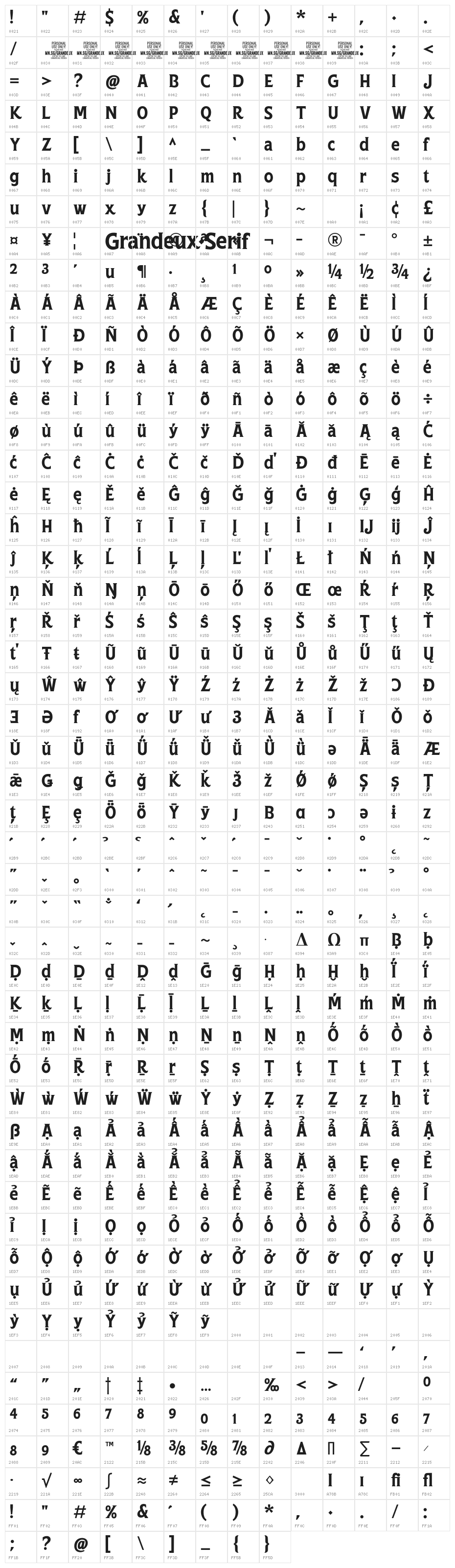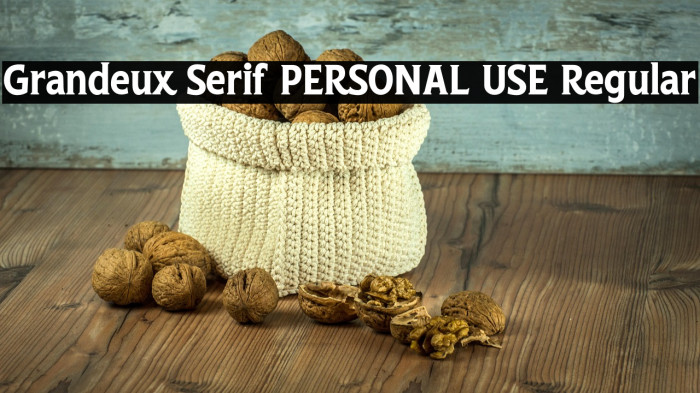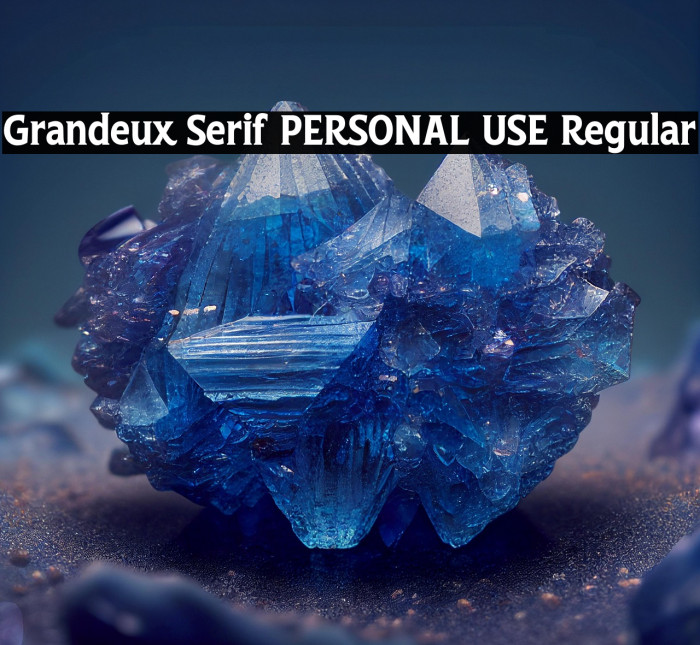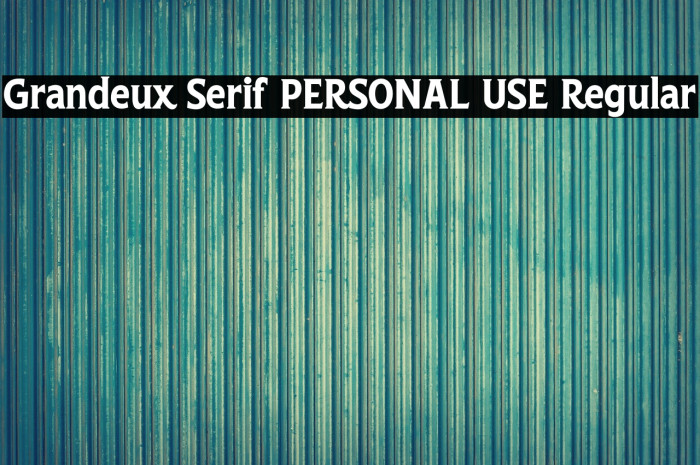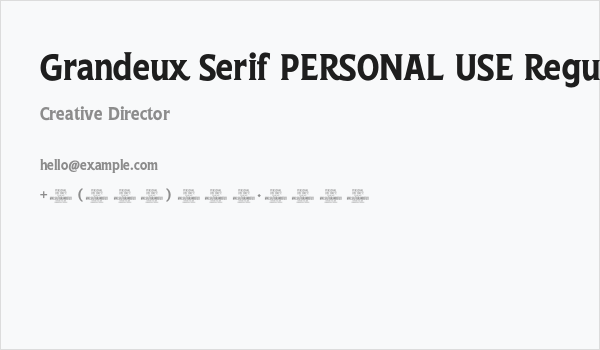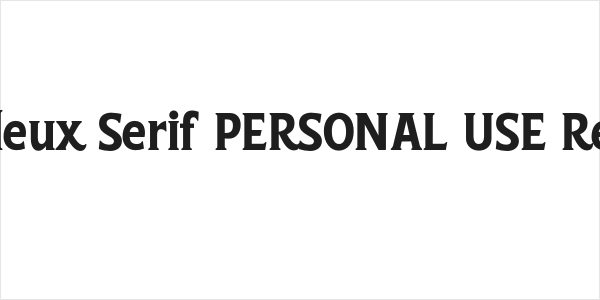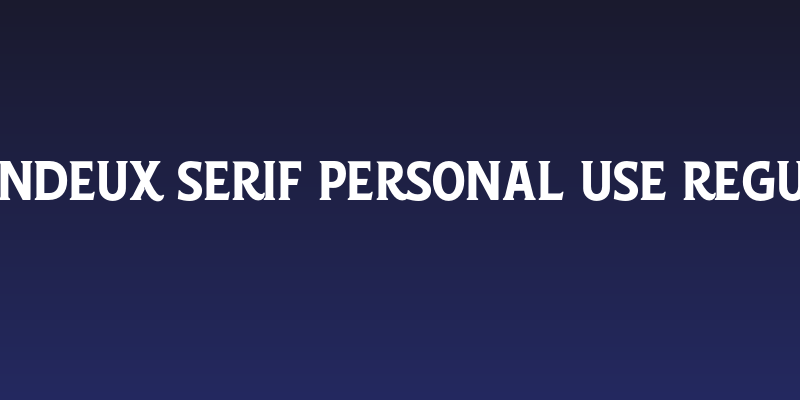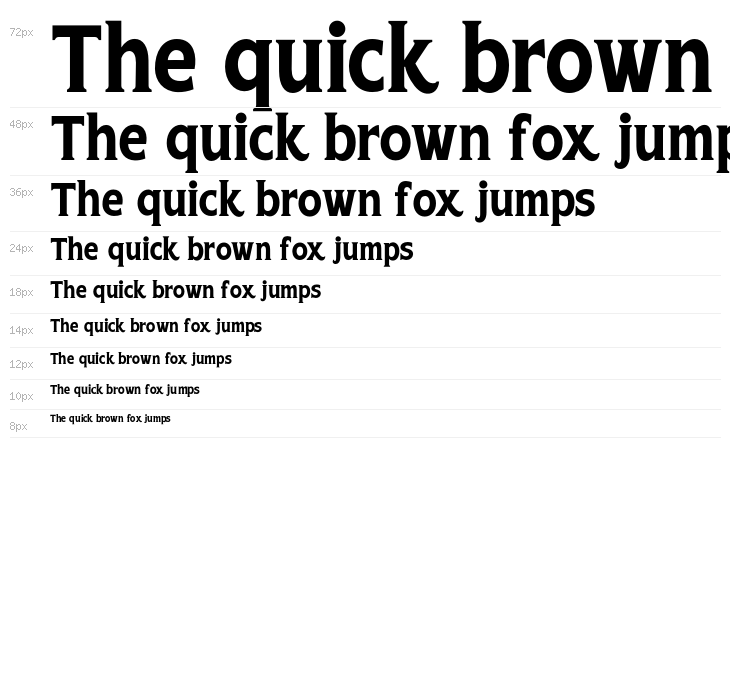
Grandeux Serif PERSONAL USE Regular Font
Grandeux Serif PERSONAL USE Regular Description
This font features a classic serif style with strong, bold strokes and a traditional feel. The uppercase letters are robust and commanding, while the lowercase letters maintain a consistent weight, offering a harmonious balance. The serifs are pronounced, adding a touch of elegance and formality. The numerals are clear and easily readable, and the special characters are well-integrated, maintaining the overall aesthetic. This font is versatile, suitable for both digital and print media, and can be used to convey a sense of authority and sophistication.